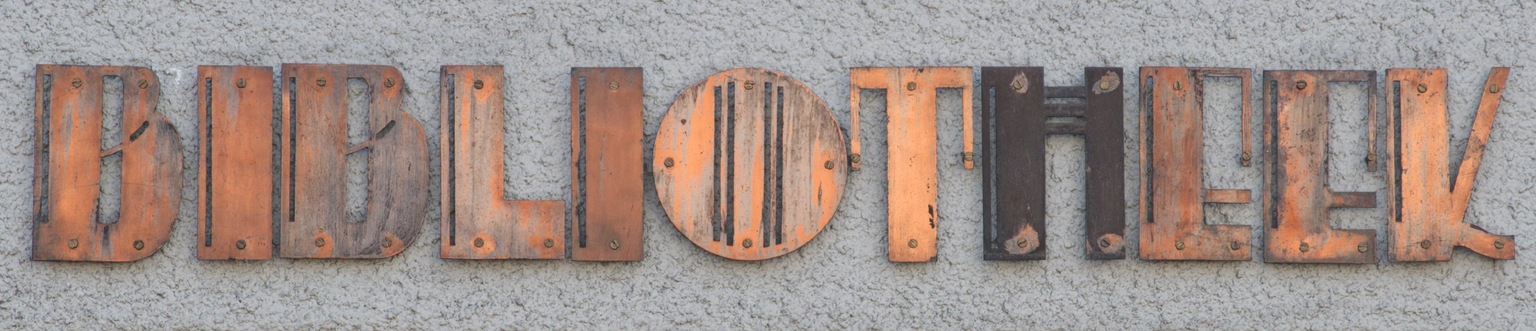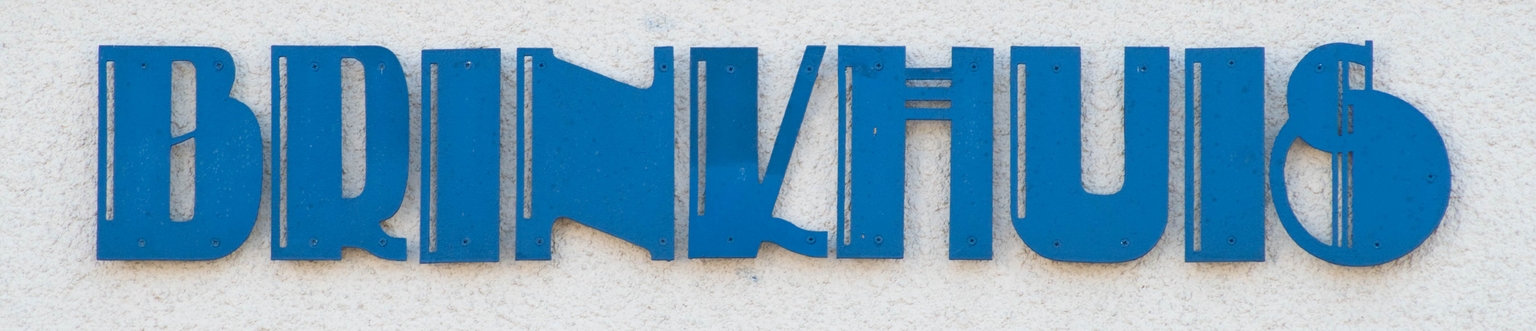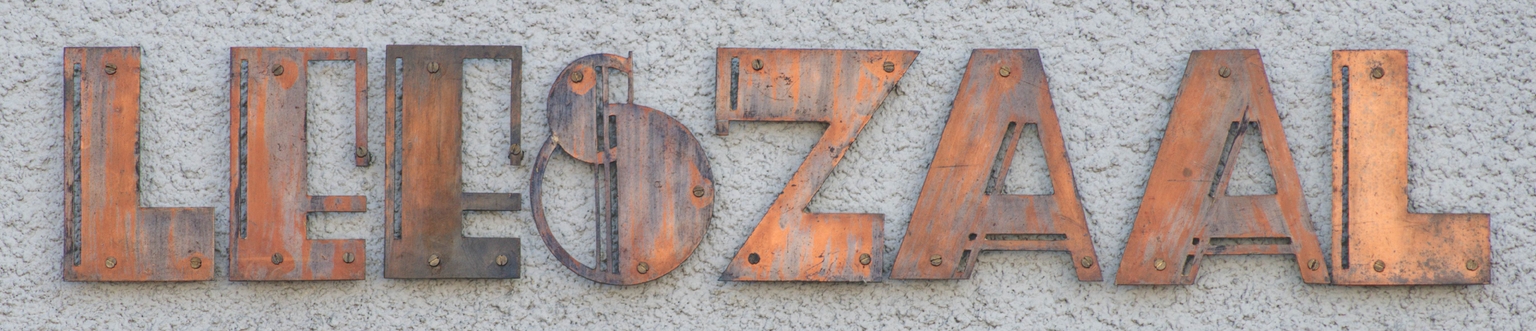
Brinkhuis
Brinkhuis is a distinctive display typeface designed by Paula Mastrangelo, inspired by the geometric, modular lettering found on several facades in Betondorp—Amsterdam’s iconic “Concrete Village” located in Watergraafsmeer. Built in the 1920s as a model of affordable, modern housing, Betondorp reflects the rationalist ideals of the Dutch avant-garde. The original lettering, likely designed by architect Dick Greiner, features a striking and unconventional Deco style—bold, angular, and full of character—that sets it apart from more common architectural alphabets of the period.
With Brinkhuis, Mastrangelo revives and expands these letterforms into a complete typeface that captures the neighborhood’s understated modernism and expressive typographic flair. Its clean lines, squared forms, and sturdy rhythm make it ideal for signage, editorial use, and identity work with a historical or architectural edge.
Rooted in a site rich with cultural history—Betondorp is also the birthplace of football legend Johan Cruyff—Brinkhuis brings a piece of Amsterdam’s social and design heritage into the digital age.